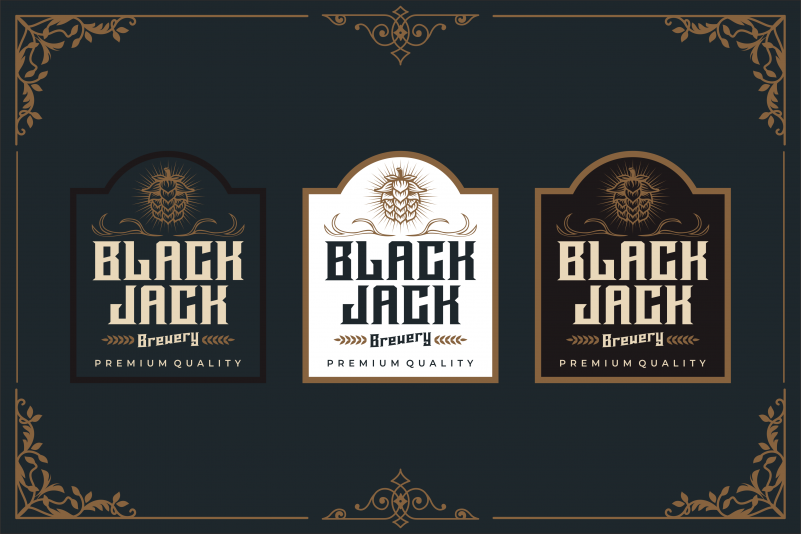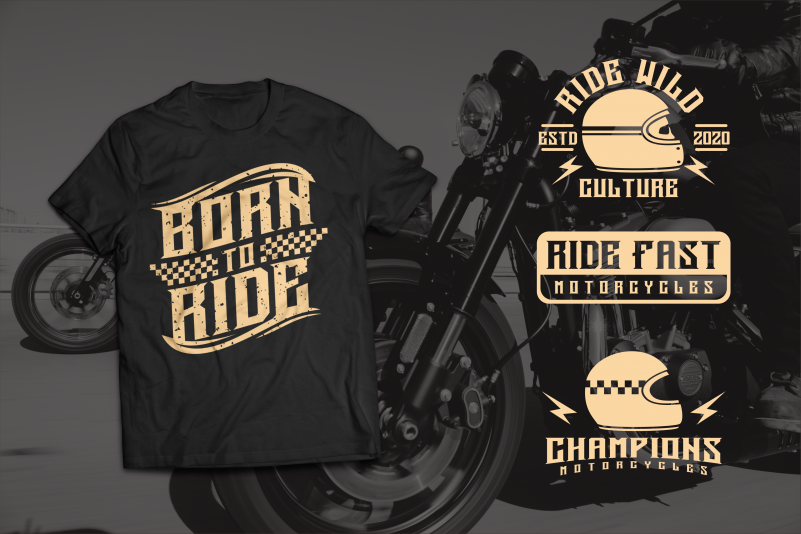
Deargod Font
Deargod Display Font
This is an incredibly unique display font, bold and persuasive, that can easily become a true favorite! This playfully conceptual typeface font will look outstanding in a wide range of contexts.